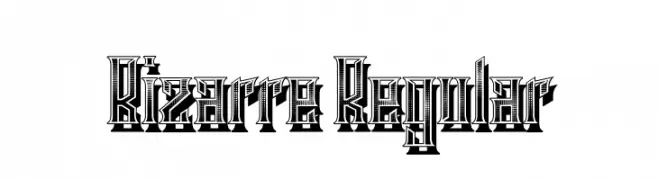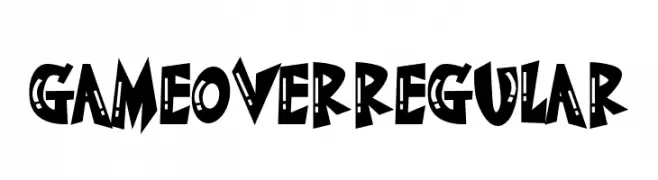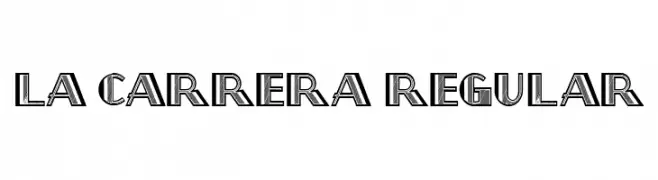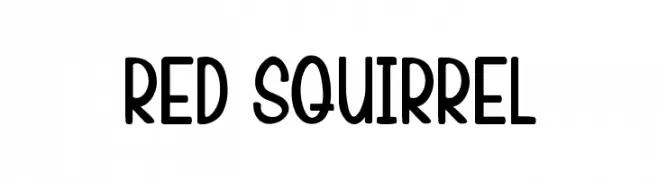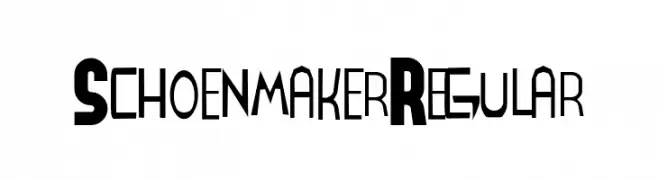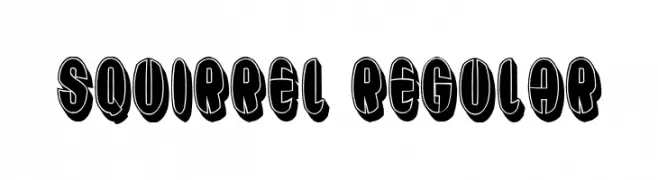
A bold, geometric font with sharp angles and a modern aesthetic.
A bold, playful font with dynamic, angular characters and a cartoonish style.
A playful, rounded font with smooth curves and a friendly appearance.
A display font featuring ninja silhouettes as characters.
A bold, three-dimensional font with intricate detailing and a vintage flair.
A bold, geometric font with a modern, racing-inspired aesthetic.
A bold, playful font with a 3D effect and retro appeal.
A bold, angular font with a futuristic and robotic style.
A playful, rounded font with consistent stroke width and a modern, approachable style.
A pixelated, blocky font with a retro digital aesthetic.